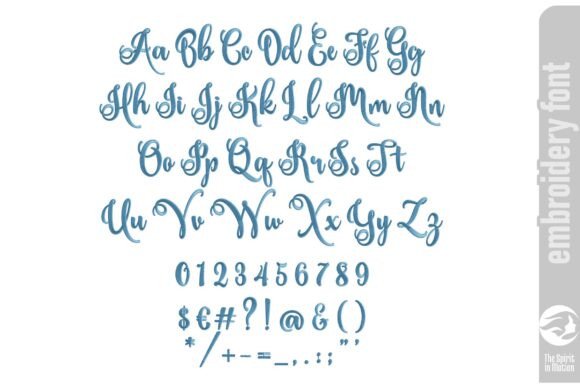
Ardilla Script Embroidery Font - Medium
Ardilla Script Embroidery Font – Medium
Introducing Ardilla Script, a luxurious embroidery font that exudes elegance and sophistication. With its flowing curves, this font is perfect for adding a touch of refined beauty to any embroidery project. Designed for those who appreciate timeless style, Ardilla Script is ideal for monograms, wedding decor, personalized gifts, fashion embroidery, and more.